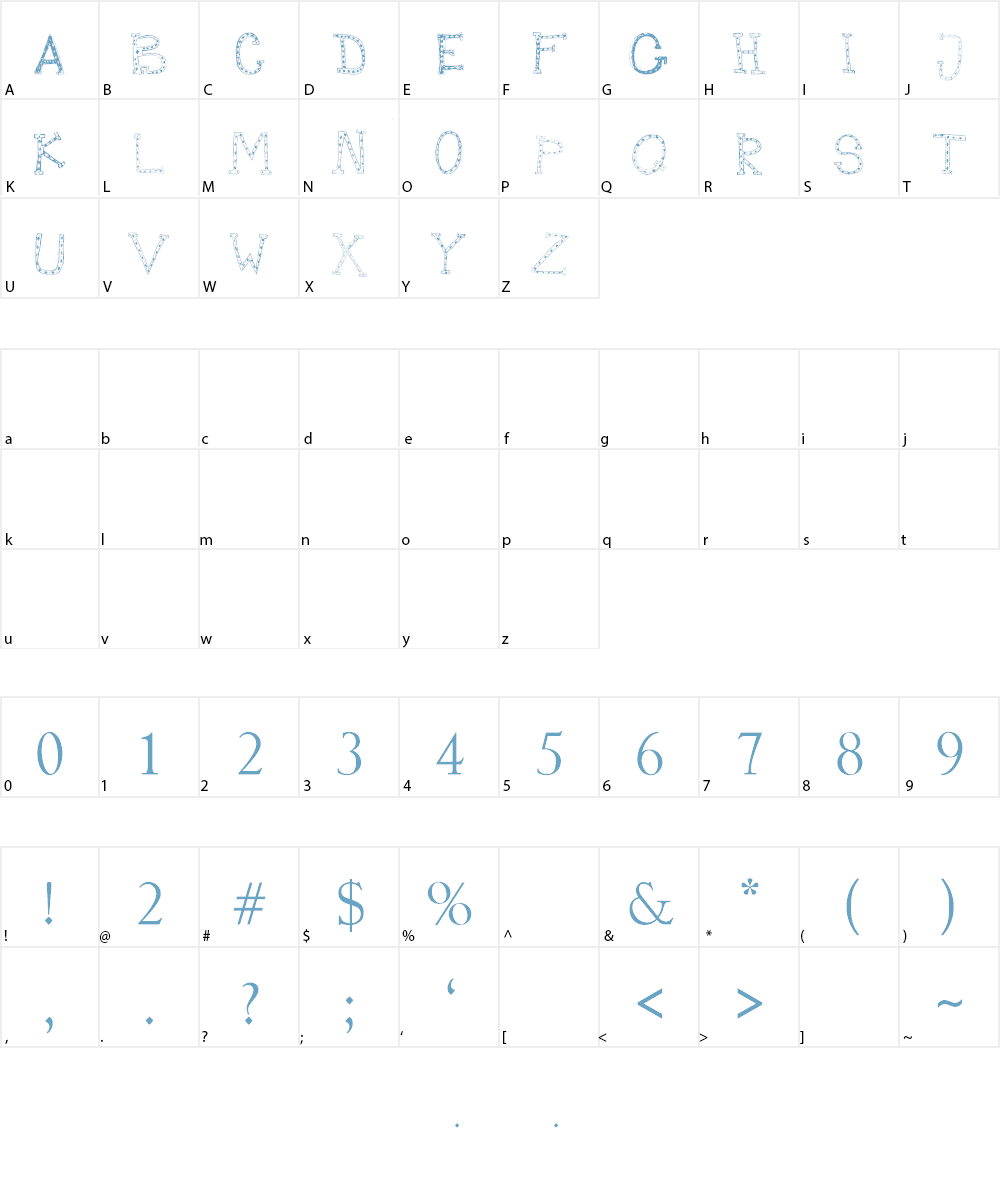
This font contains capital only. No number and no lower cases. Personal use only. This font was created for my scrapbooking kit Mischief Circus. http://www.mischiefcircus.com/shop/manufacturers.php?manufacturerid=25. If you are interested about CU license contact me at